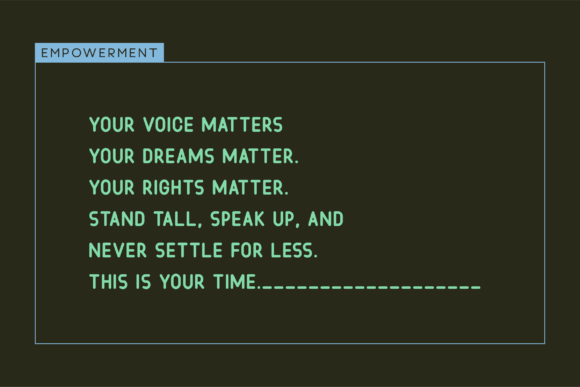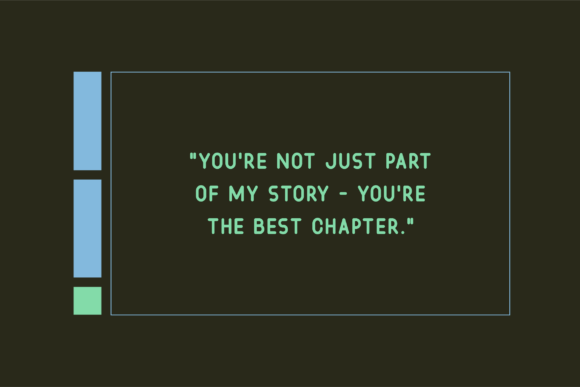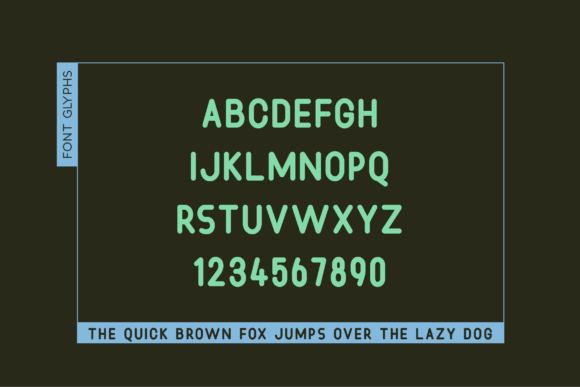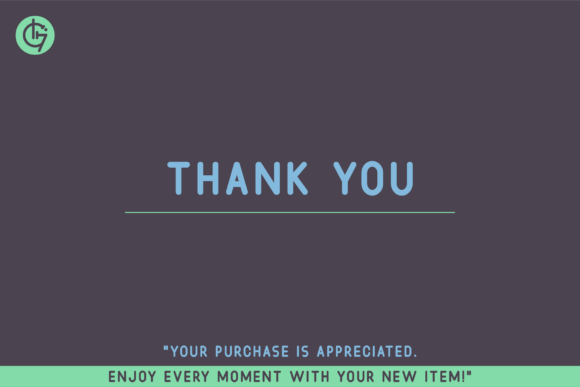
Introduction to Noleguste Font
Immerse yourself in the playful charm of Noleguste, an all-caps sans-serif display font brimming with personality.
Noleguste font is a sophisticated, airy, rounded sans serif that brings a touch of coastal elegance to any design This Noleguste typeface is characterized by its rhythmic spacing and clean, elongated letterforms, evoking the feeling of luxury travel and high-end retreats.